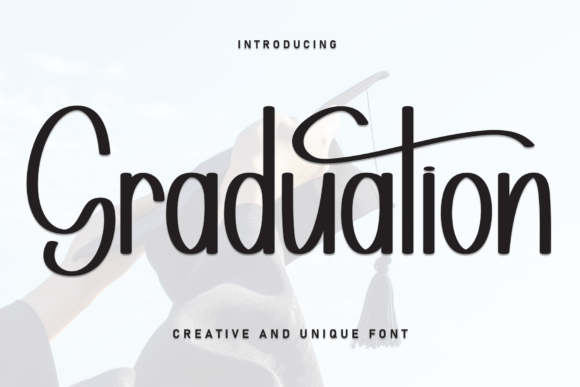
The Perfect Script for Your Masterpiece: Graduation Font
Remember that moment when you stumbled upon the perfect font for a design project, and suddenly, everything fell into place? It’s as if the entire piece came alive with a single, elegant stroke. For many designers, that moment is made possible by the Graduation Font – a stylish handwritten script that exudes elegance and playfulness in every curve.
This beautiful font is designed to add a personal touch to invitations, branding, and social media, bringing warmth, sophistication, and creativity to any project. With its flowing curves and natural rhythm, the Graduation Font is a valuable addition to any designer’s toolkit, offering endless possibilities for creative expression.
Whether you’re working on a special occasion, a branding project, or simply want to add a touch of personality to your social media posts, the Graduation Font is sure to impress. Its unique design makes it a standout choice for designers looking to elevate their work and make a lasting impression.
Graduation Font Key Features
- Unique Characteristics: Graduation Font is designed with a unique, hand-drawn aesthetic that features subtle graduation lines, giving it a distinctive and eye-catching look.
Graduation Font Review
As a designer, I was excited to dive into the Graduation Font and see if it would bring the pomp and circumstance to my projects. Here’s my honest take.
- The font’s unique, celebratory feel makes it perfect for graduation announcements, certificates, and other academic-themed designs.
- The bold, cursive strokes are highly legible, even at smaller font sizes.
- The font’s simplicity makes it easy to pair with other sans-serif fonts and design elements.
- The font’s limited character set may make it difficult to use for longer blocks of text, like essays or articles.
- The font’s cursive style may not be suitable for body text or formal documents, where a more traditional font is preferred.
- The font’s overall design may be seen as too flashy or attention-seeking for more conservative designs.
The Graduation Font is a great choice for projects that require a celebratory, academic feel. While it may not be suitable for every design project, it’s a fun and eye-catching option that’s sure to make a statement.
Tips: Use the Graduation Font for titles and headings to add a touch of elegance and sophistication to your design.
Tips: Use the Graduation Font for titles and headings in your design to create a cohesive and professional look.
Tips: Use the Graduation Font for titles and headings in your presentation or document to add a touch of elegance and sophistication.
The Graduation Font is perfect for:
- Graduation announcements and invitations
- Academic certificates and diplomas
- Professional presentations and reports
Tips: Experiment with different font sizes, colors, and styles to create a unique and memorable design.